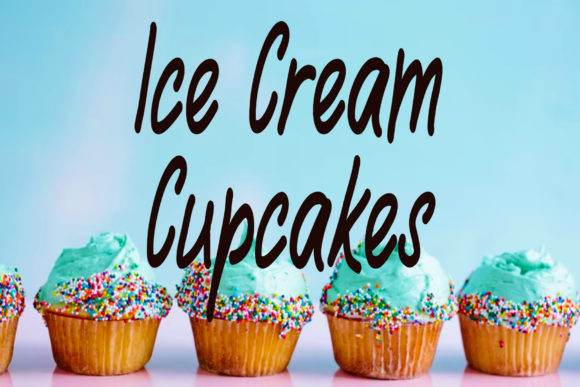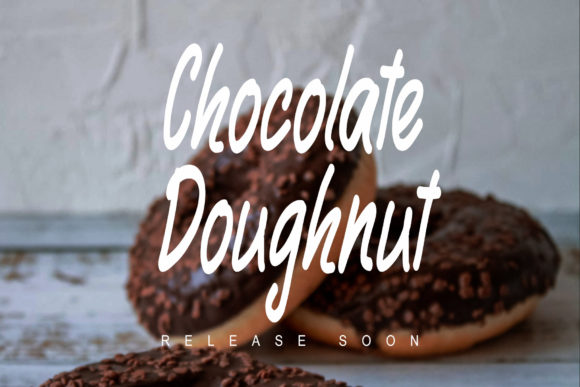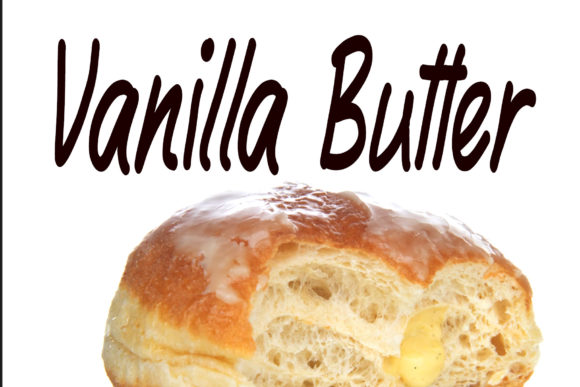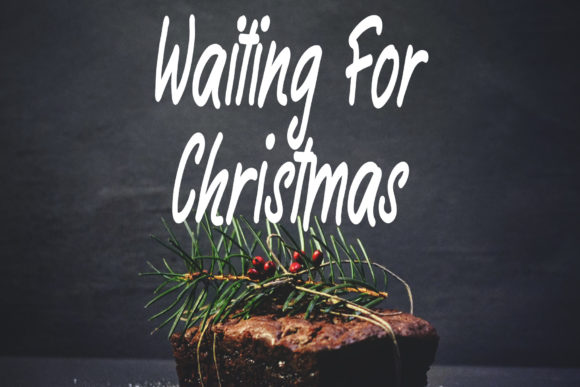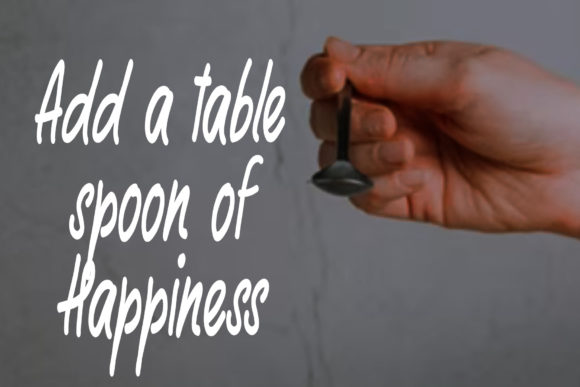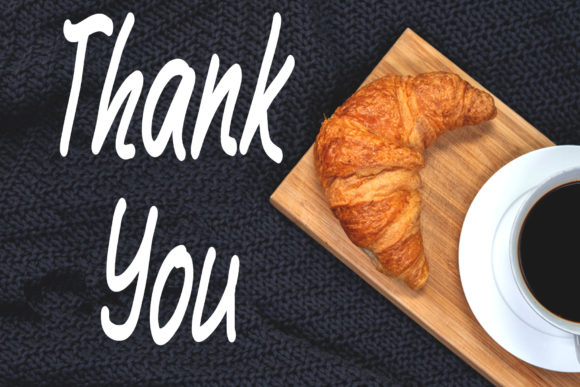
Croissant Font: The Charming and Elegant Choice for Designers and Crafters
Are you a designer or crafter looking for a font that exudes charm and elegance? Look no further than the Croissant Font. This beautiful, handwritten font is perfect for adding a touch of sophistication to any design project. In this article, we’ll explore the features and benefits of the Croissant Font, and why it’s a great choice for a variety of design applications.
The Charm of Croissant Font
Croissant Font feels equally charming and elegant, making it an excellent choice for designers and crafters who want to add a touch of whimsy to their work. The font’s delicate, cursive script and intricate lettering make it perfect for creating beautiful, eye-catching designs. Whether you’re working on a wedding invitation, a thank you card, or a logo, Croissant Font is sure to impress.
Wedding invitations, thank you cards, and other event-related designs are a perfect match for Croissant Font. The font’s elegant and sophisticated feel makes it ideal for formal events, and its charm and whimsy add a touch of romance and personality. With Croissant Font, you can create beautiful, one-of-a-kind designs that will make your clients and their guests swoon.
Croissant Font is not just limited to wedding and event designs. Its versatility makes it suitable for a wide range of design applications, including:
- Wedding invitations and thank you cards
- Quotes and typography art
- Greeting cards and stationery
Why Designers and Crafters Love Croissant Font
So, why do designers and crafters love Croissant Font? Here are just a few reasons:
- Unique and eye-catching: Croissant Font is a unique and eye-catching font that will make your designs stand out from the crowd.
- Elegant and sophisticated: The font’s elegant and sophisticated feel makes it perfect for formal events and designs.
- Easy to read: Despite its intricate lettering, Croissant Font is easy to read, making it perfect for body text and quotes.
- Versatile: Croissant Font can be used for a wide range of design applications, from wedding invitations to logos and branding.
Tips for Using Croissant Font
Here are a few tips for using Croissant Font in your designs:
- Use it sparingly: While Croissant Font is beautiful, it can be overwhelming if used too much. Use it sparingly to add a touch of elegance and whimsy to your designs.
- Pair it with other fonts: Croissant Font pairs well with other fonts, such as sans-serif fonts and script fonts. Experiment with different pairings to find the one that works best for your design.
- Experiment with colors: Croissant Font looks beautiful in a variety of colors, from soft pastels to rich jewel tones. Experiment with different colors to find the one that works best for your design.
| Font Name | Croissant Font |
In conclusion, Croissant Font is a charming and elegant font that is perfect for designers and crafters who want to add a touch of sophistication to their work. Its versatility, unique lettering, and ease of use make it suitable for a wide range of design applications, from wedding invitations to logos and branding. Whether you’re a seasoned designer or a crafter just starting out, Croissant Font is a great choice for any design project.